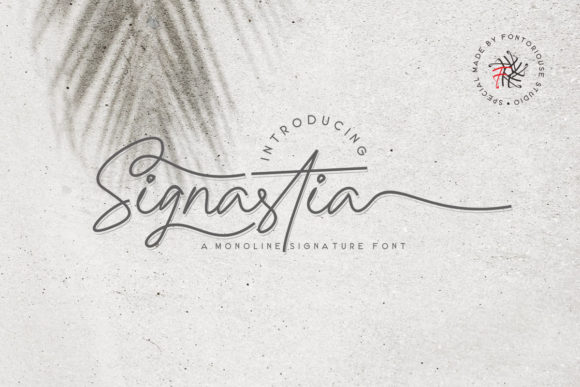
In the world of digital communication, where first impressions reign supreme, Signastia Font emerges as a captivating symphony of elegance, inviting you to craft email signatures that resonate with your brand's essence. This meticulously designed script font transcends the boundaries of ordinary typography, transforming your emails into exquisite expressions of your unique identity.
Immerse yourself in the enchanting aura of Signastia, a font that whispers sophistication and grace with every stroke. Its delicate curves and beautiful flourishes lend an air of timeless elegance to your emails, captivating the attention of recipients from the very first glance.
With Signastia, your email signature becomes a canvas upon which you can paint a vivid picture of your brand's personality. Its subtle yet captivating presence lends a touch of charm and professionalism to your communication, ensuring that your messages stand out from the crowd and leave a lasting impression.
Embrace the power of Signastia and elevate your email signature to new heights. Unleash your creativity and let this remarkable font guide you in crafting a signature that reflects your brand's essence, resonates with your audience, and leaves them eagerly anticipating your next message.
Step into the realm of extraordinary email communication with Signastia Font, the ultimate fusion of elegance and impact. Enhance your brand's online presence and forge meaningful connections with your customers through the art of exquisite typography.